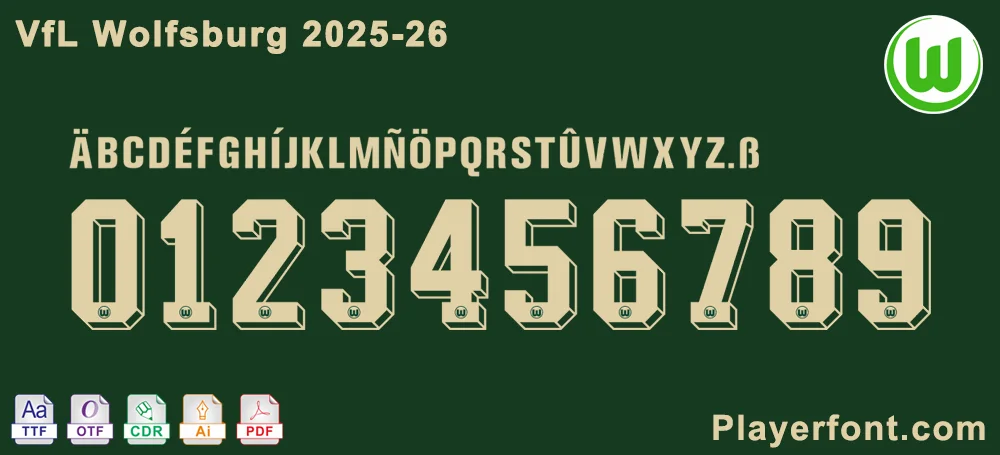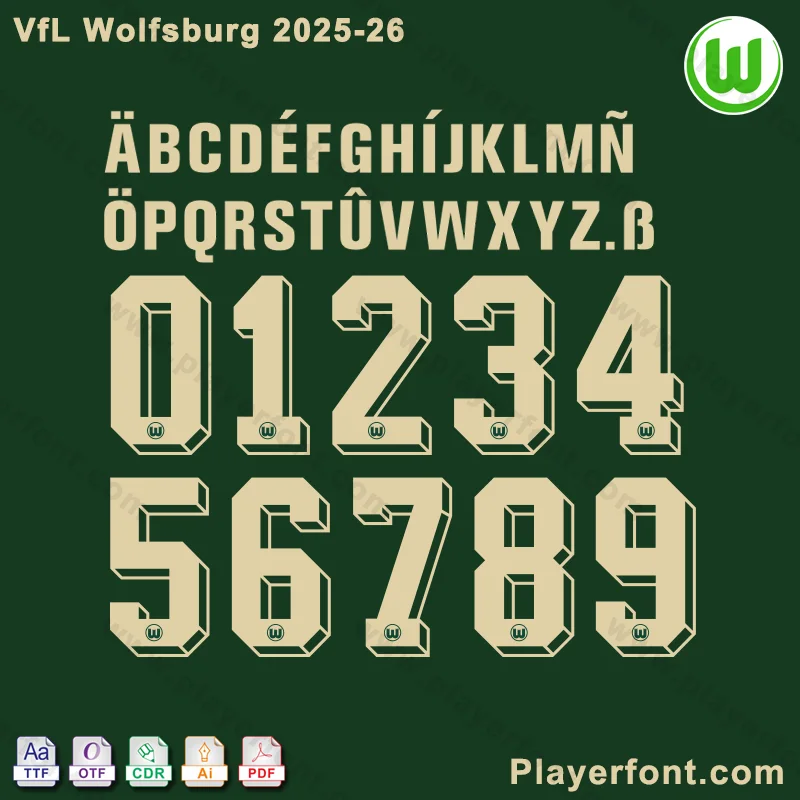
VfL Wolfsburg 2025-2026 Font Download
VfL Wolfsburg 2025-26 font preview showing full alphabet and numbers from Playerfont.com
Complete character set of the VfL Wolfsburg 2025-2026 typeface.
Introducing the official VfL Wolfsburg 2025-26 font – the exact typeface used in the club’s branding, jerseys, and promotional materials. This complete font package is ideal for designers, fans, and creators looking to replicate the authentic Wolfsburg aesthetic.